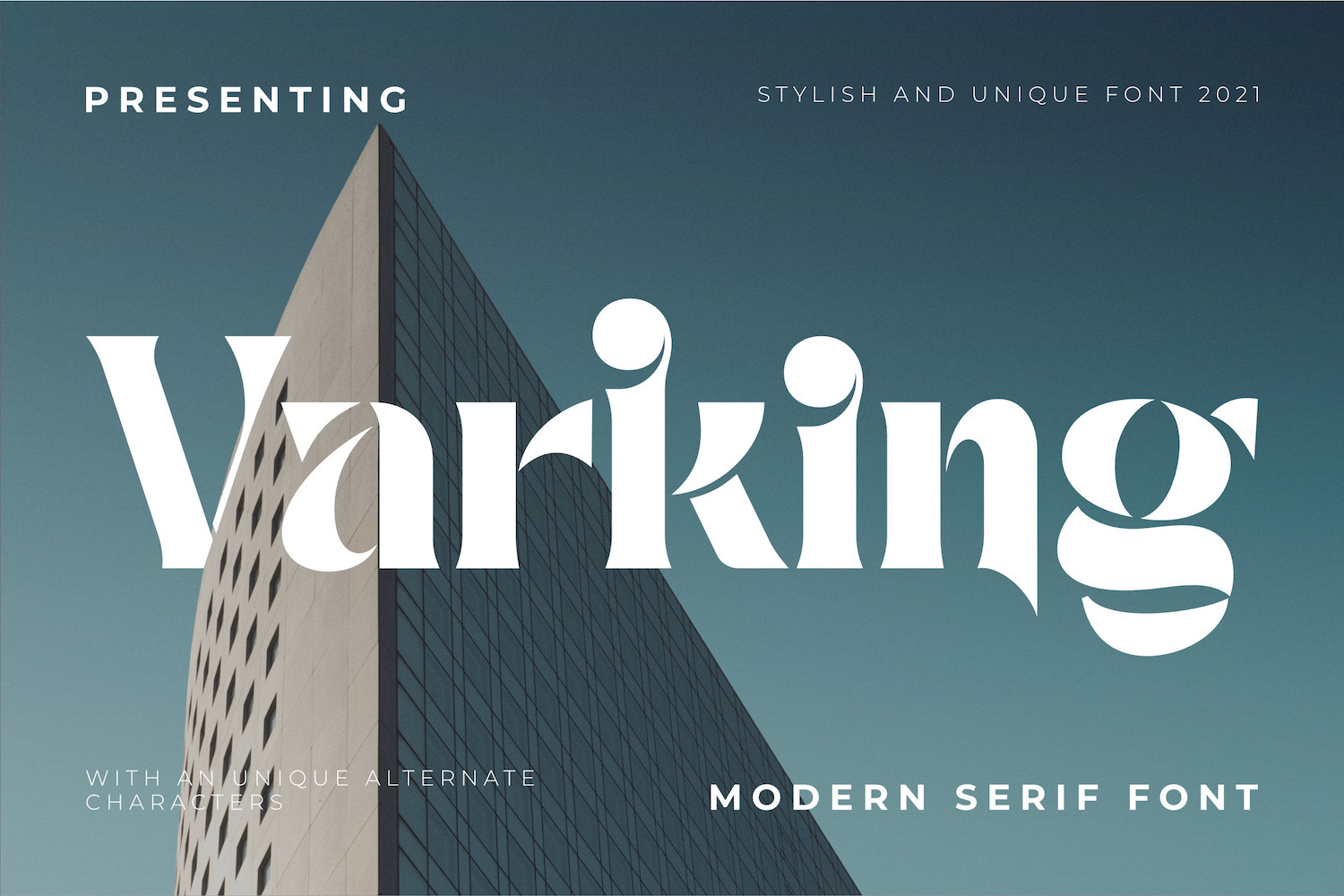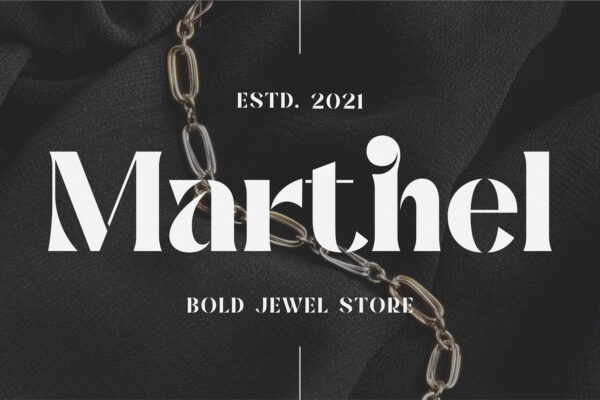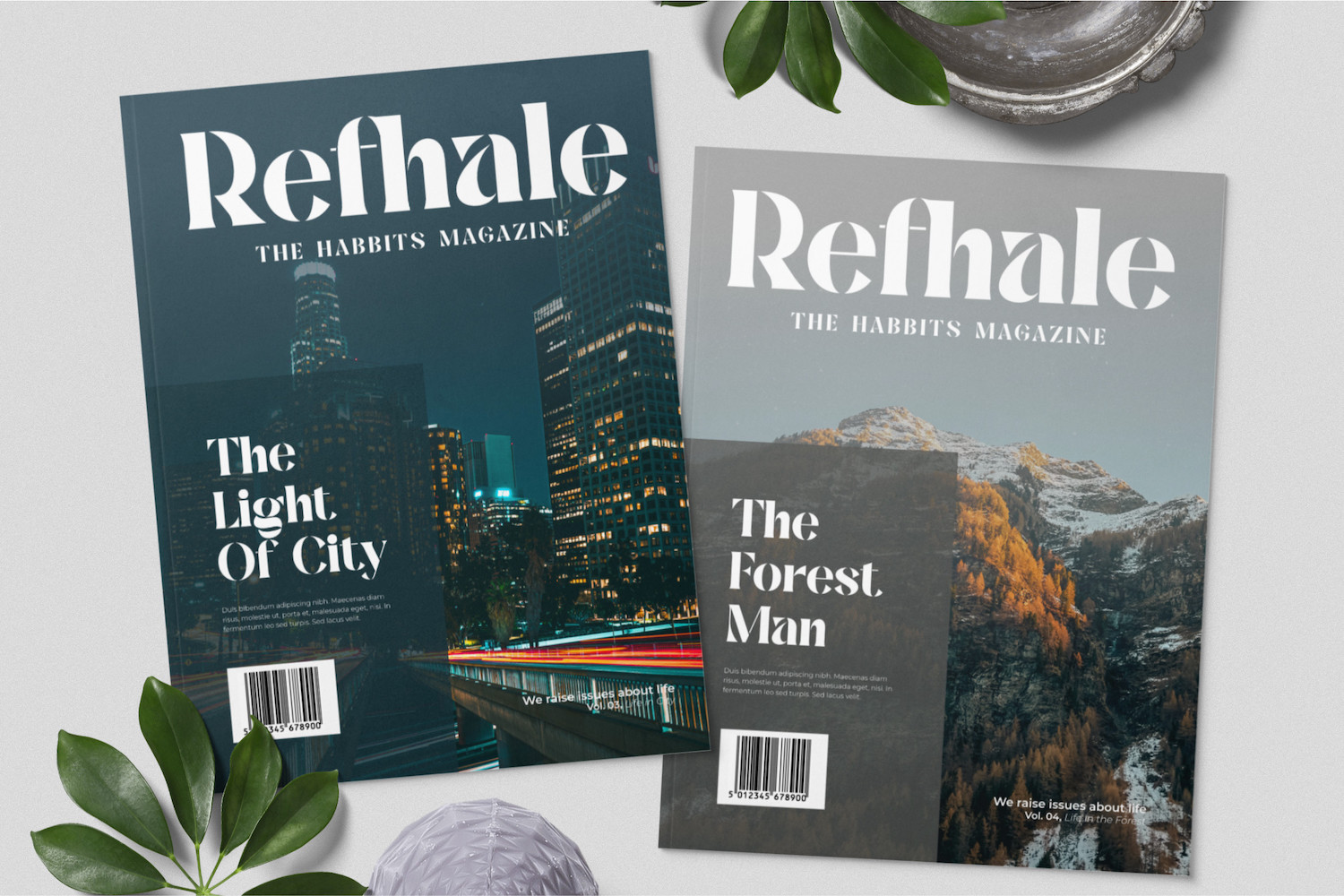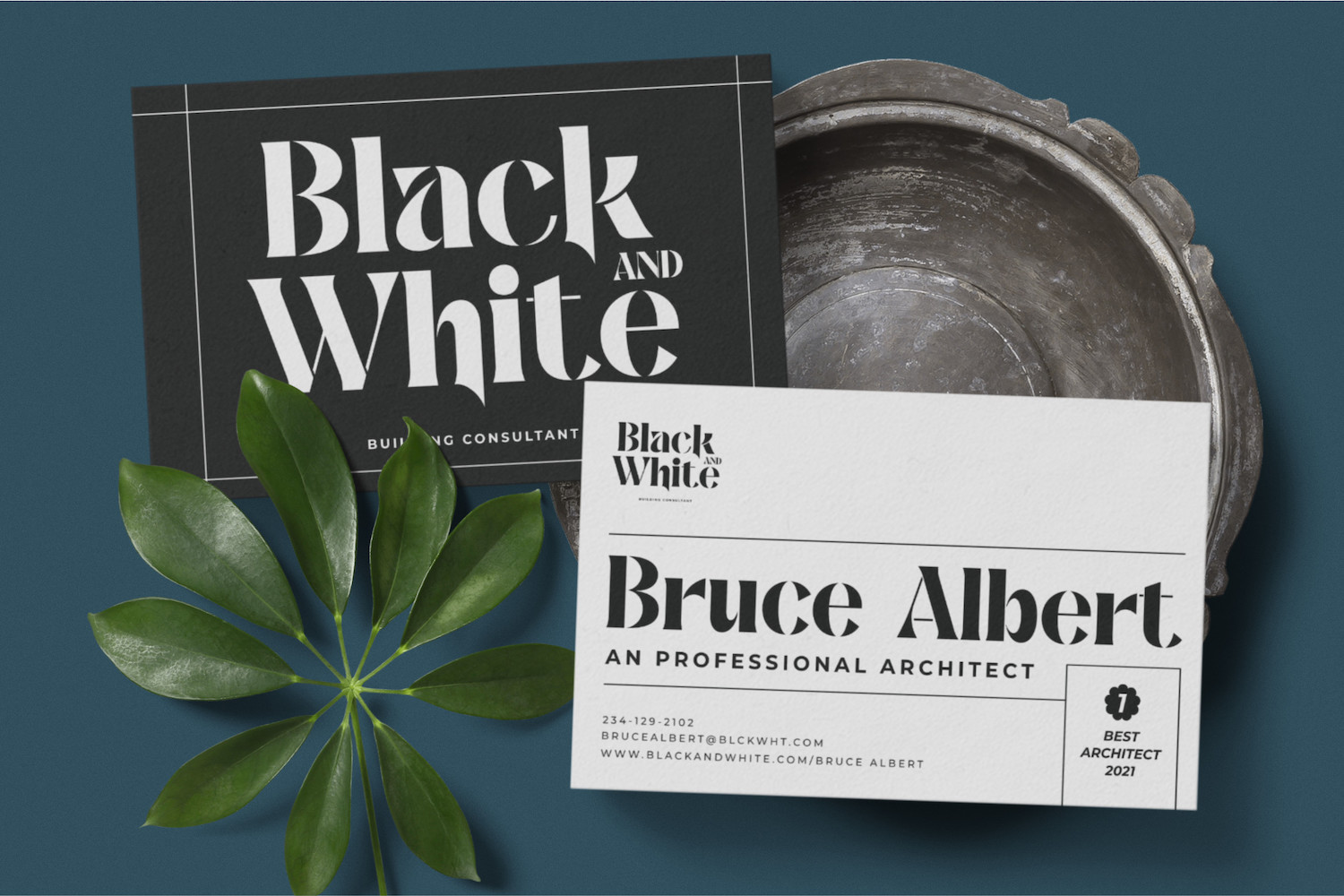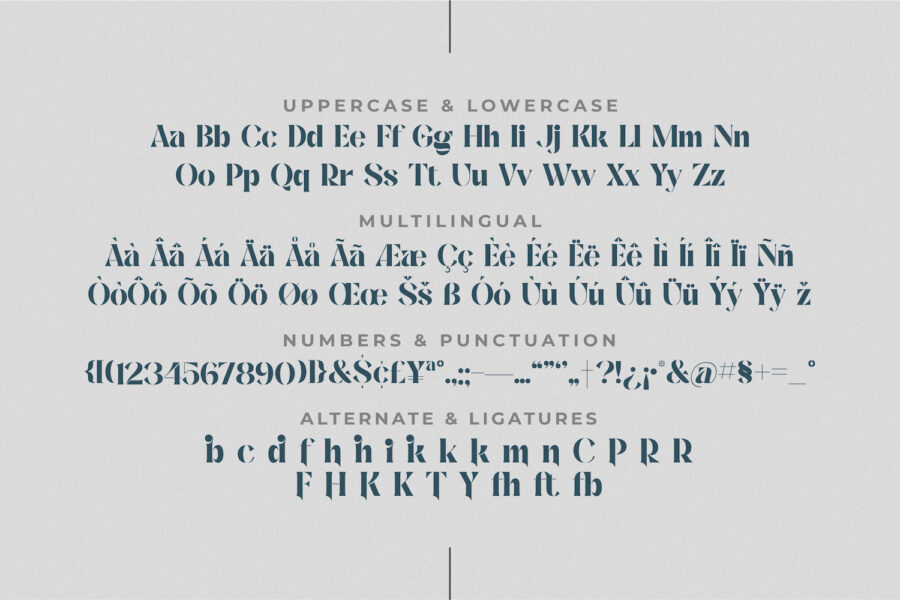
Varking
Varking is a modern serif font that blends elegant curves with bold cuts and high contrast. Designed with attention to aesthetic balance, it offers unique alternate characters that give each word a distinctive and artistic appearance. Perfect for branding, editorial design, and upscale packaging, Varking brings sophistication to any layout with its luxurious and stylish tone.
With multilingual support, a complete set of ligatures, and numerals, Varking is versatile for both display and professional use. Its graceful flair and statement-making style make it ideal for fashion, magazines, logos, and high-end product designs seeking to stand out with elegance and creativity.